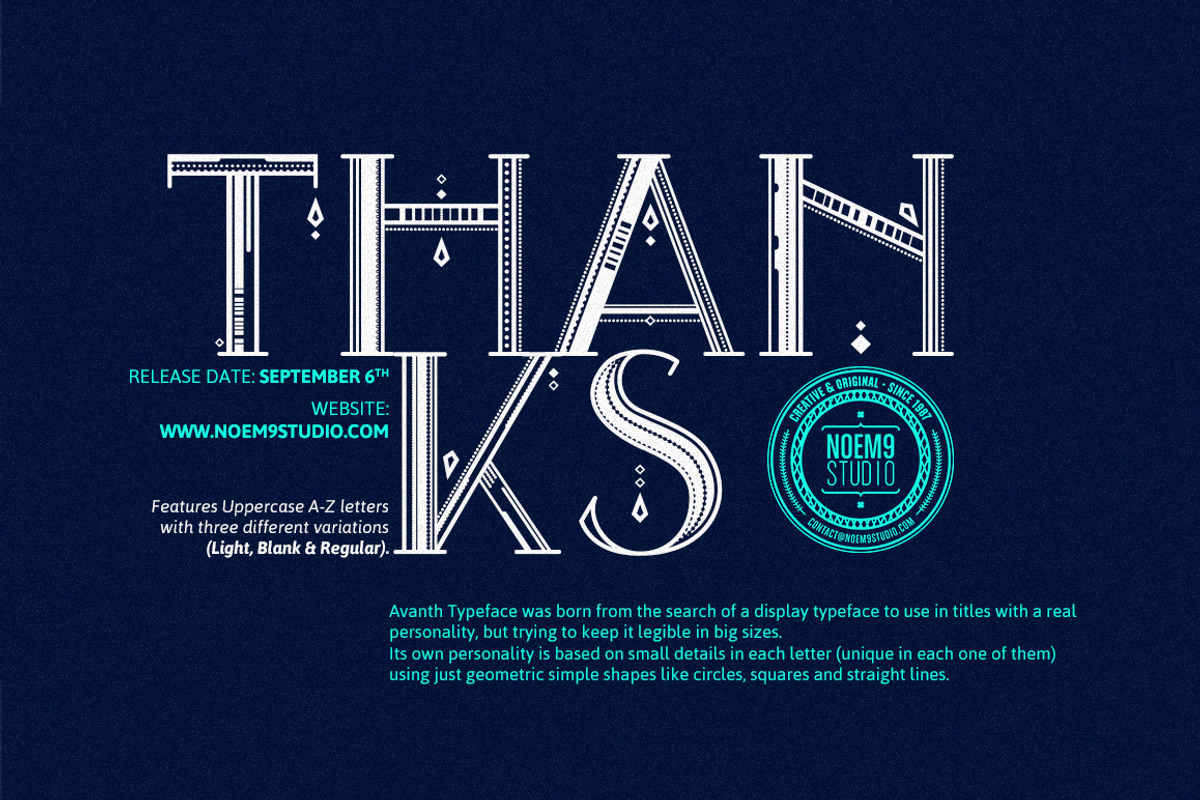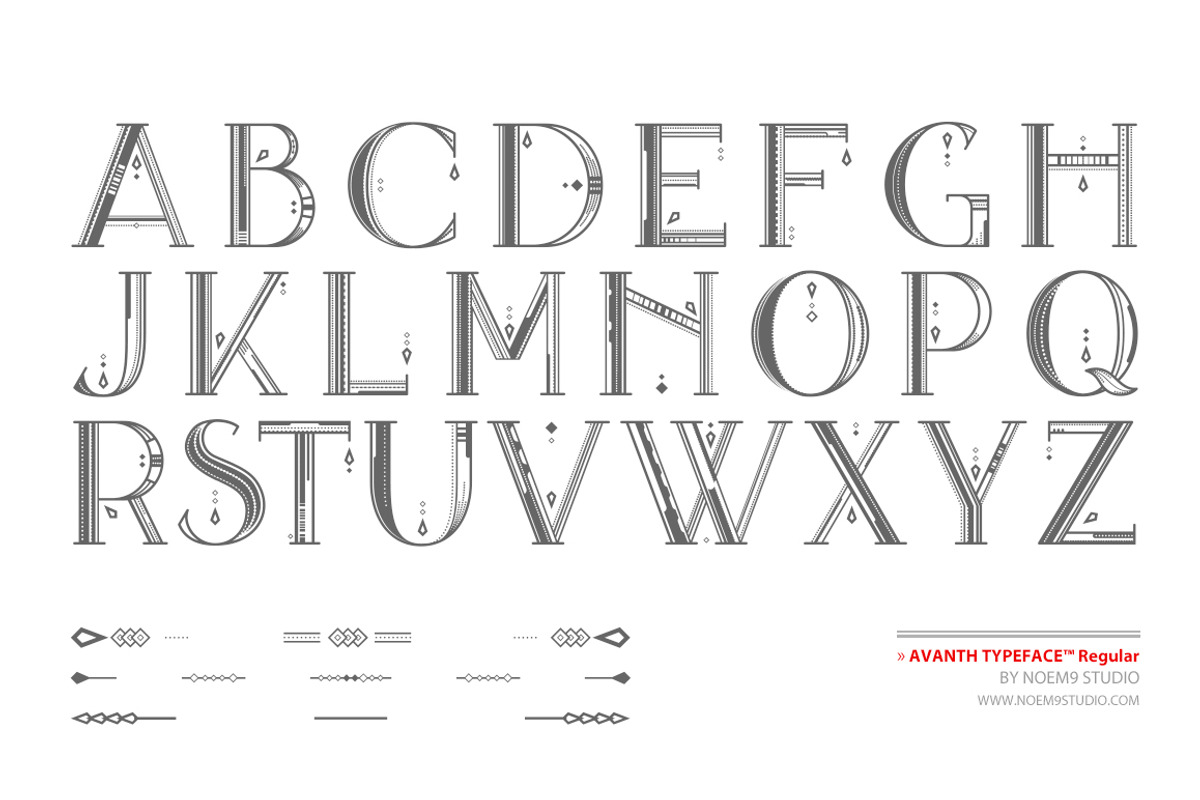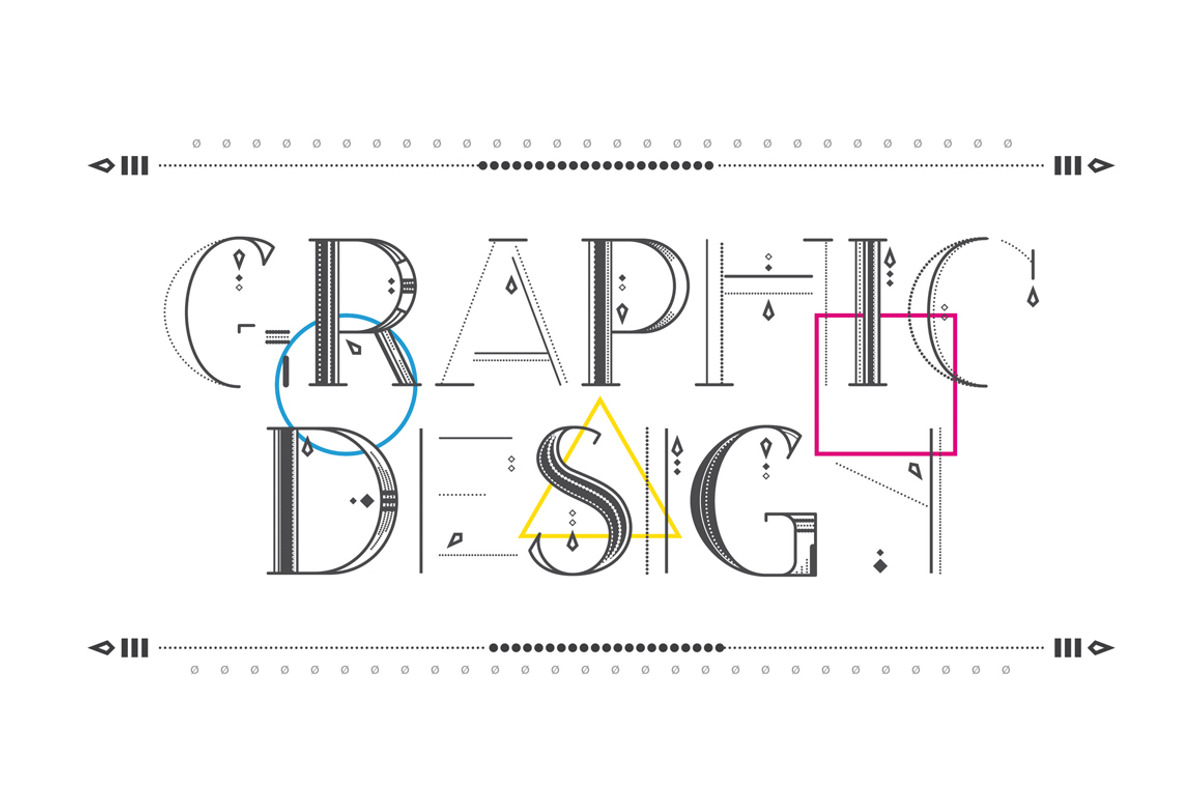
Avanth Font Family
Avanth Font Family by Noem9 Studio is a font selected for branding, posters, packaging, typography.
Why Avanth Font Family is worth a look
Avanth Font Family by Noem9 Studio fits naturally into Branding, posters, packaging, typography.